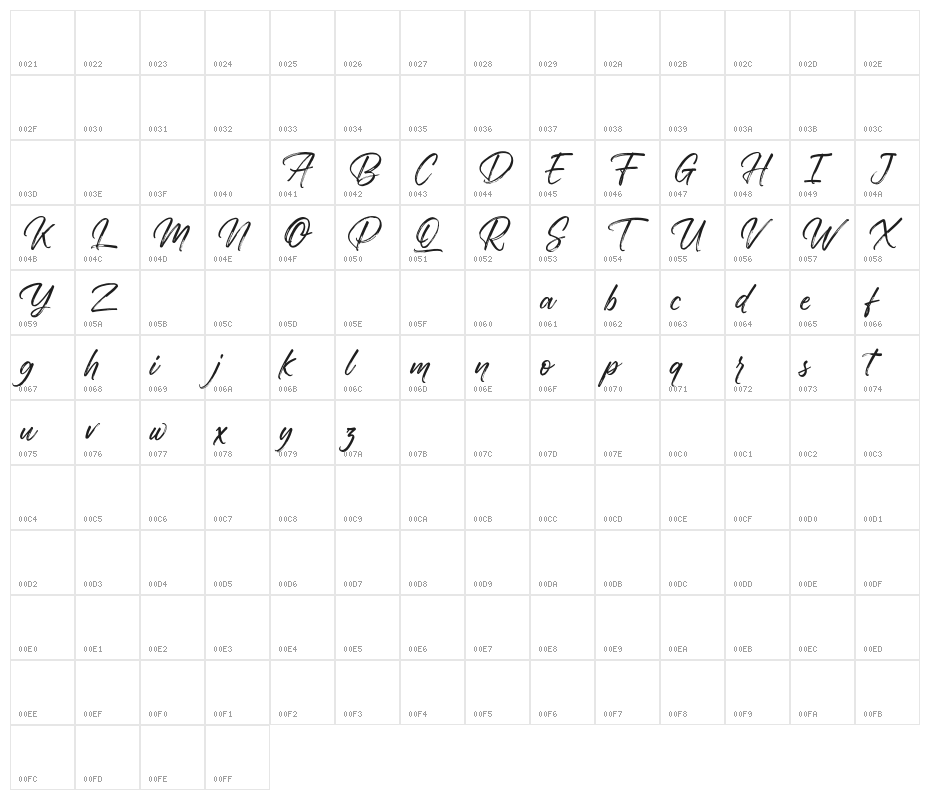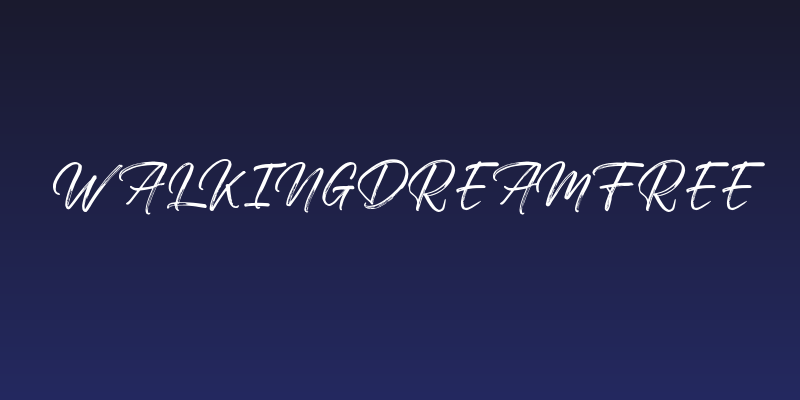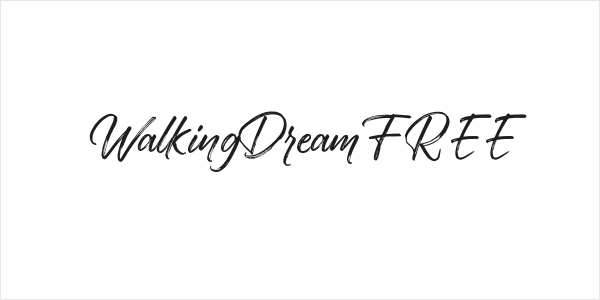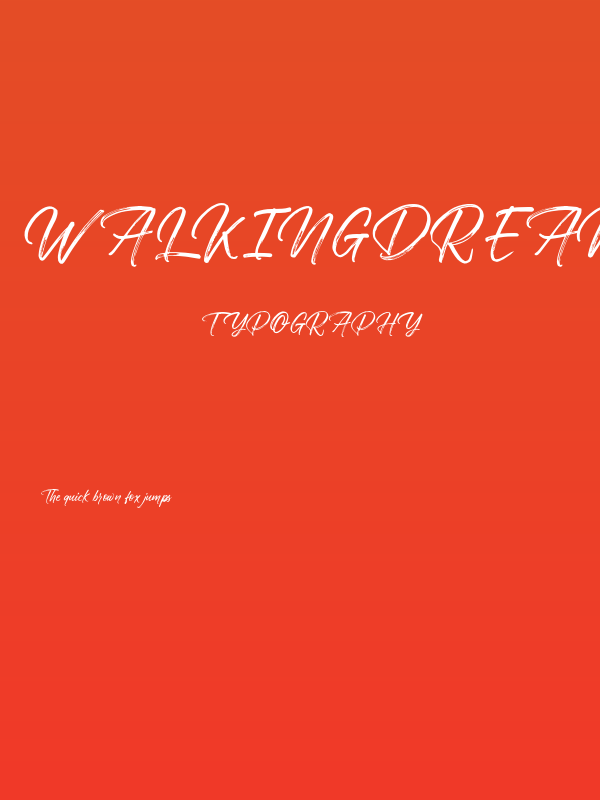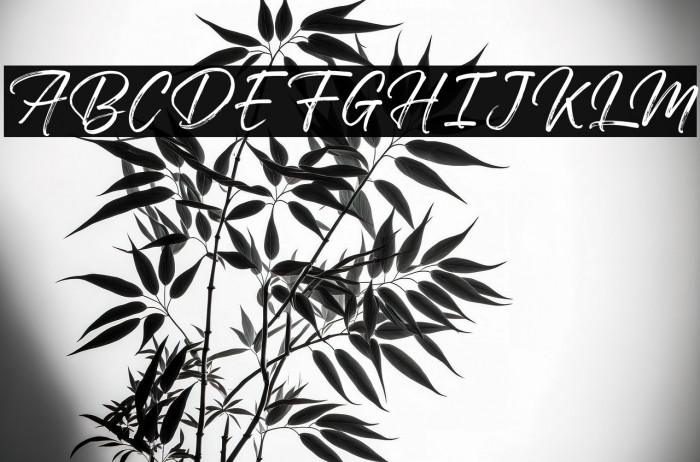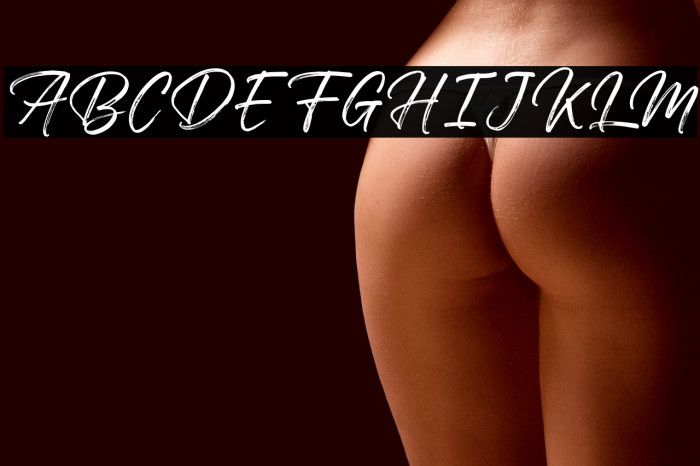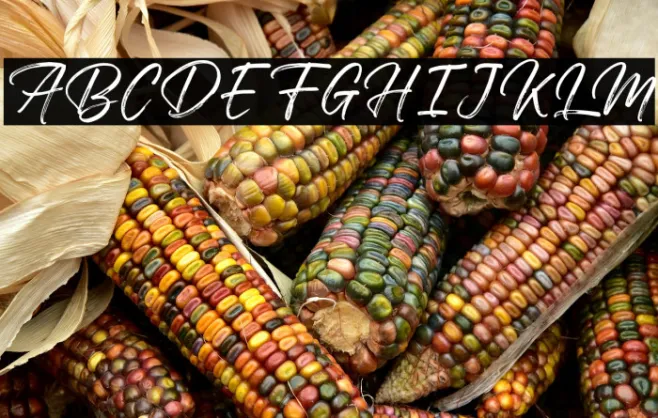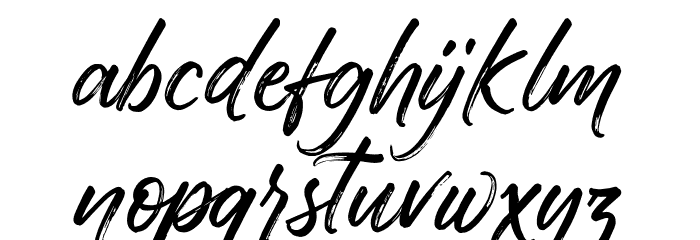
WalkingDreamFREE Font
WalkingDreamFREE Description
This font exudes a dynamic and expressive style, characterized by its fluid and cursive script. The strokes are bold and energetic, with a natural hand-drawn appearance that adds a personal touch to any design. The uppercase letters maintain a consistent height, while the lowercase letters vary in size, enhancing the font's organic feel. The overall design is both elegant and casual, making it versatile for various creative applications. The font's brush-like texture gives it a unique, artistic flair, perfect for projects that require a touch of individuality and creativity.
| Proposed Projects | Ideal for branding, invitations, greeting cards, and artistic projects that require a personal touch. |